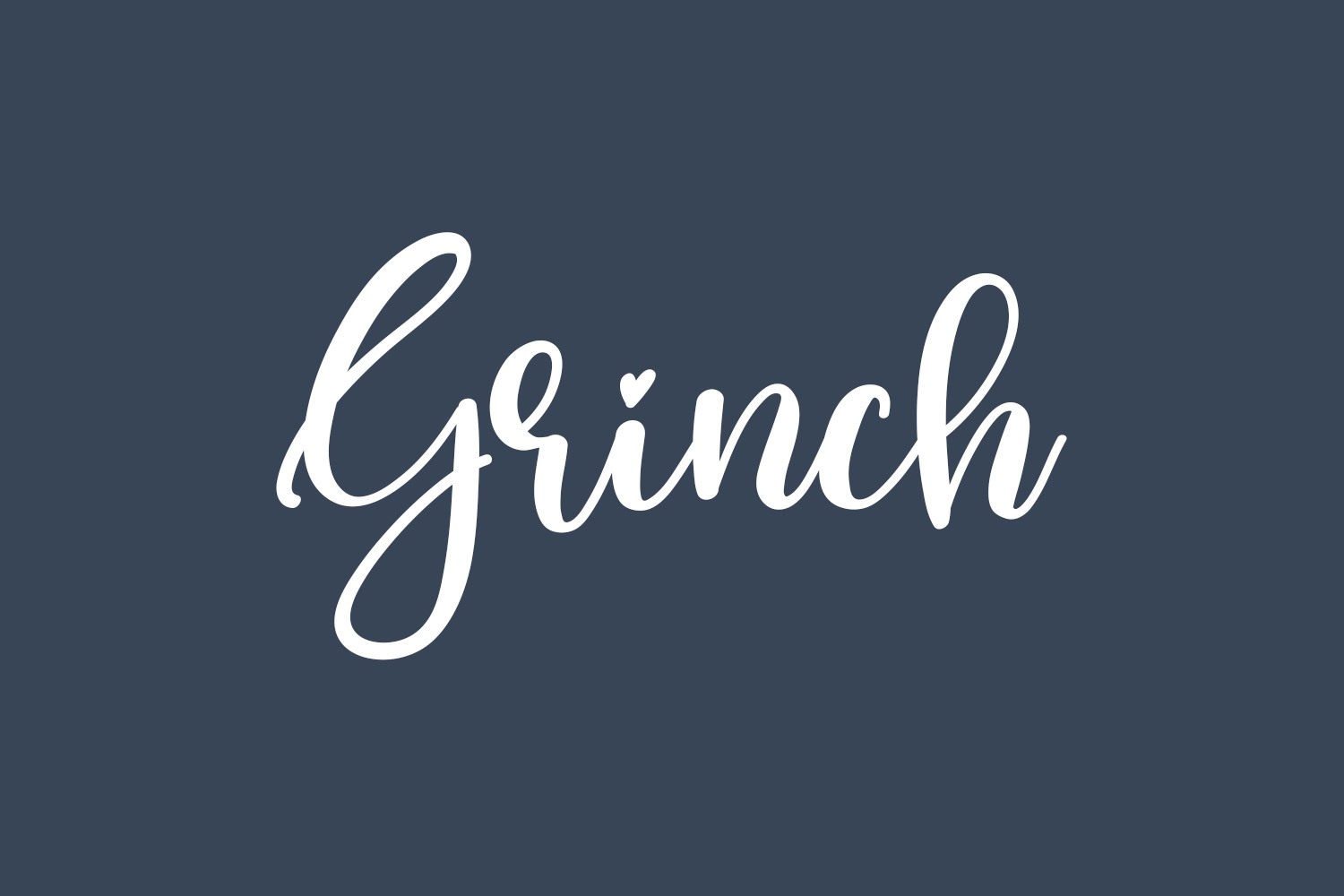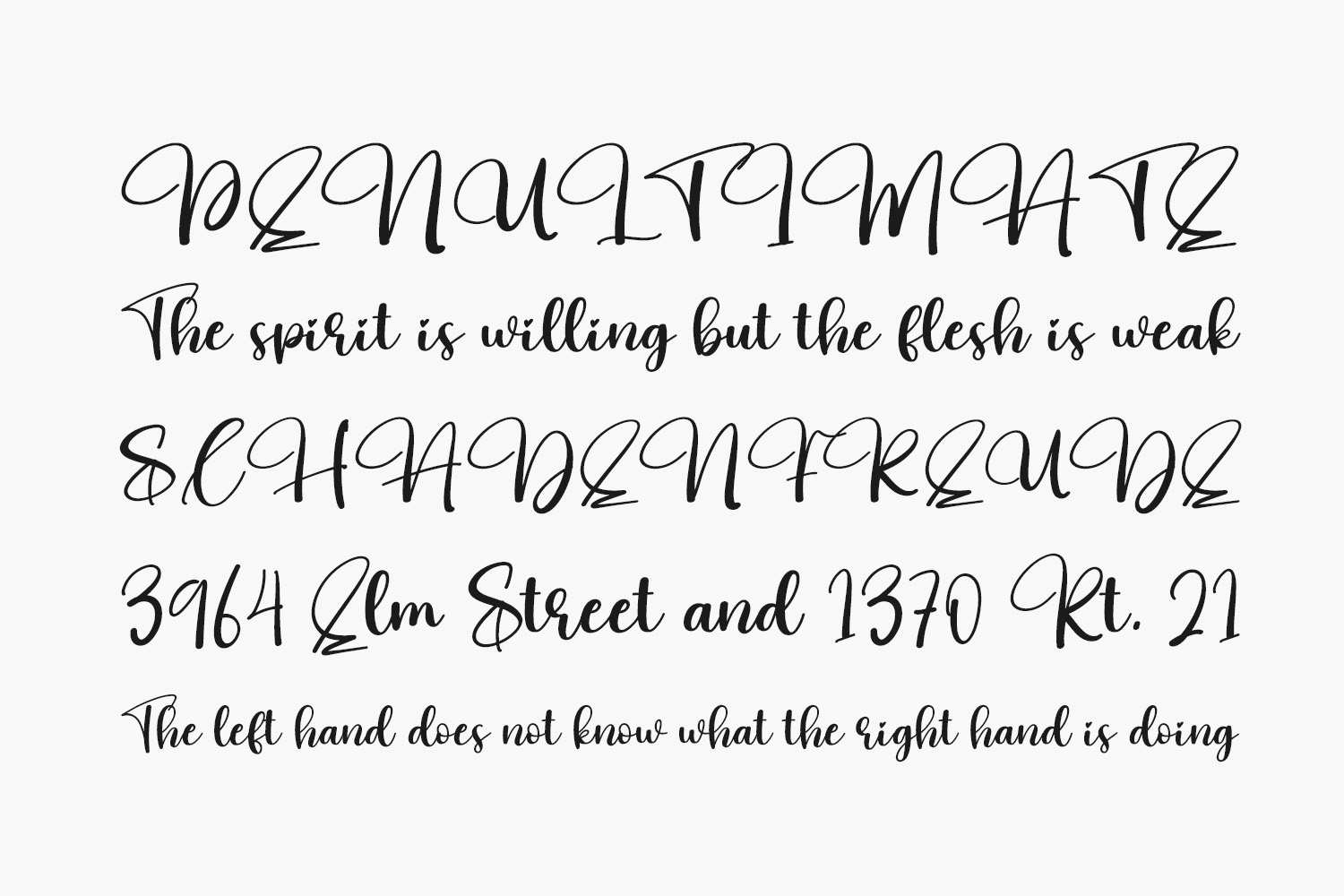
Discover the captivating charm of Grinch Free Font, a delightful handwritten font crafted to elevate a myriad of creative endeavors. Whether used for greeting cards or eye-catching headlines, this versatile script font promises to infuse a romantic touch into your upcoming projects. Grinch Free Font was designed by Scratchones and is free for personal use only. Please purchase the full version for commercial use.